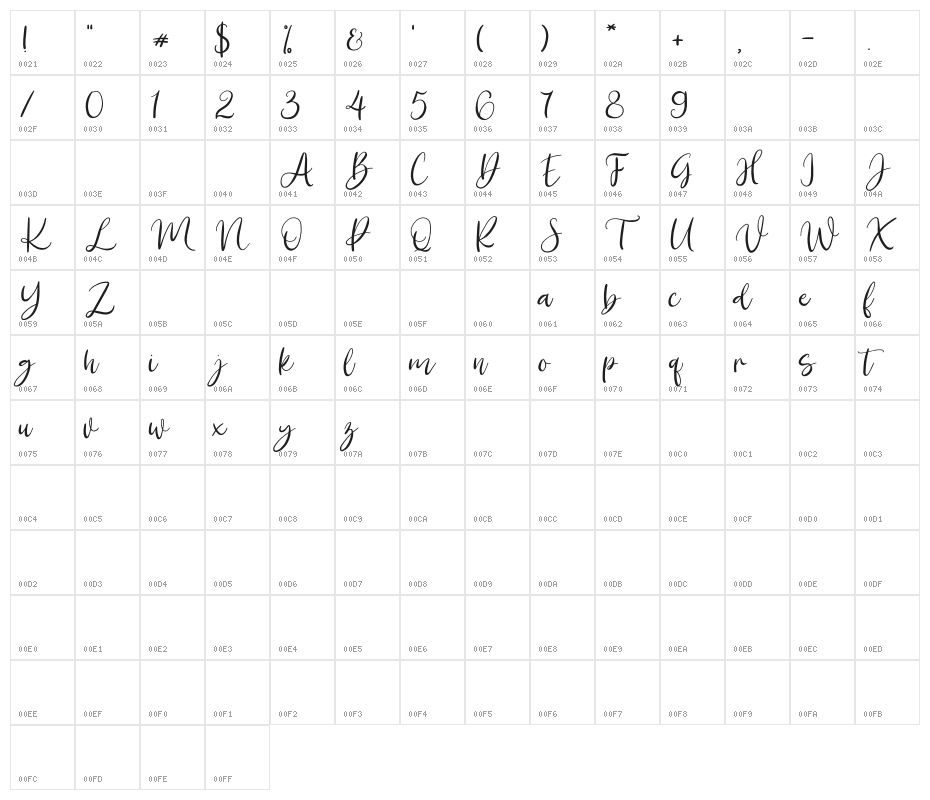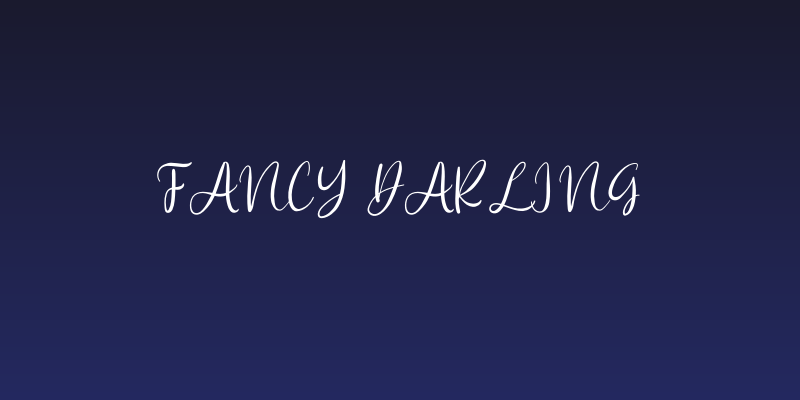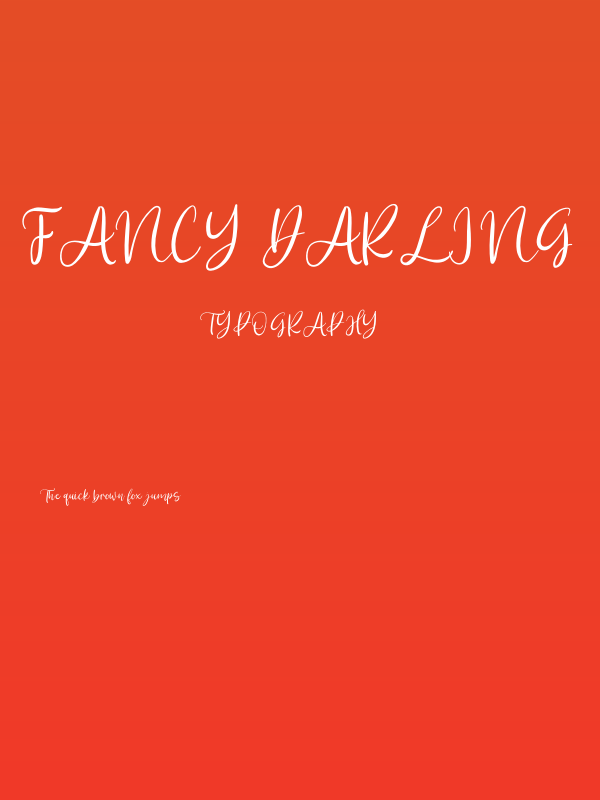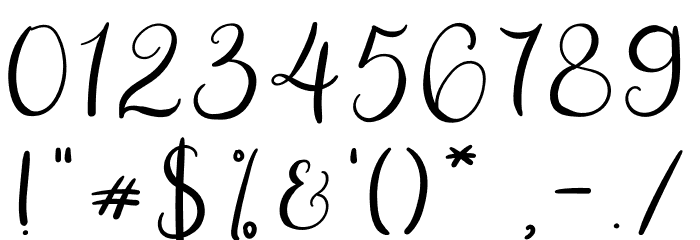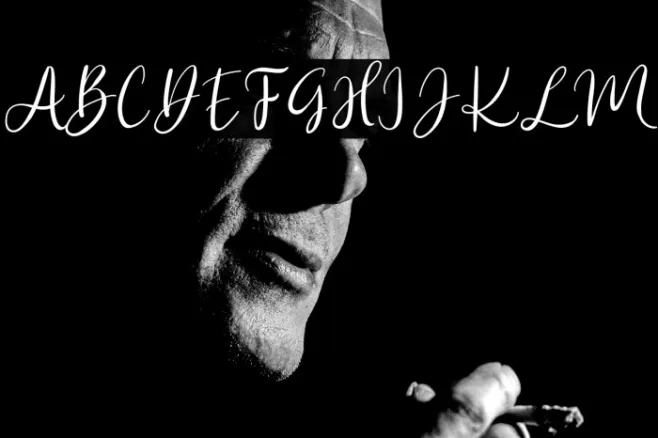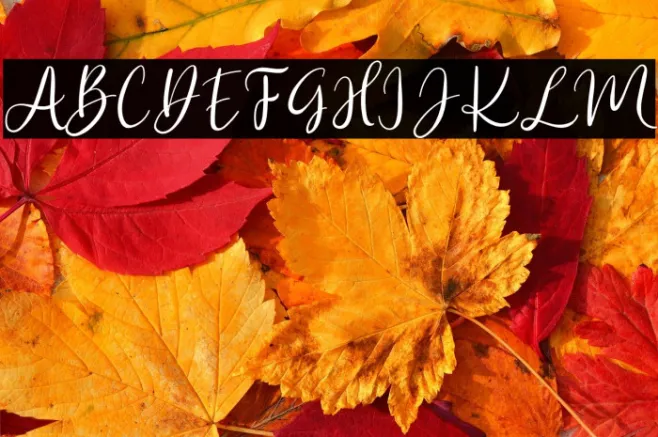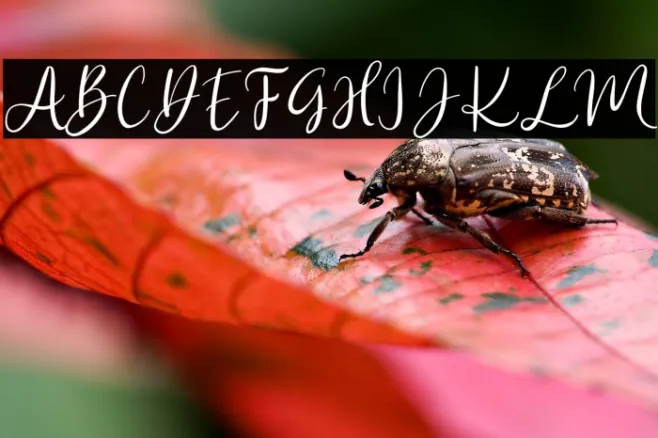
Fancy Darling Font
Fancy Darling Description
This font exudes elegance and charm with its flowing, cursive style. The letters are gracefully connected, creating a sense of fluidity and movement. The uppercase characters are tall and slightly narrow, with delicate loops and swirls that add a touch of sophistication. The lowercase letters maintain a consistent rhythm, with smooth curves and a playful bounce. The numerals are stylish and complement the overall aesthetic, while the special characters are crafted with the same attention to detail. This font is perfect for projects that require a personal, handwritten touch, such as invitations, greeting cards, and branding materials.
| Use Case | Headlines, Invitations, Branding |
| Proposed Projects | Ideal for wedding invitations, personal branding, greeting cards, and elegant packaging. |